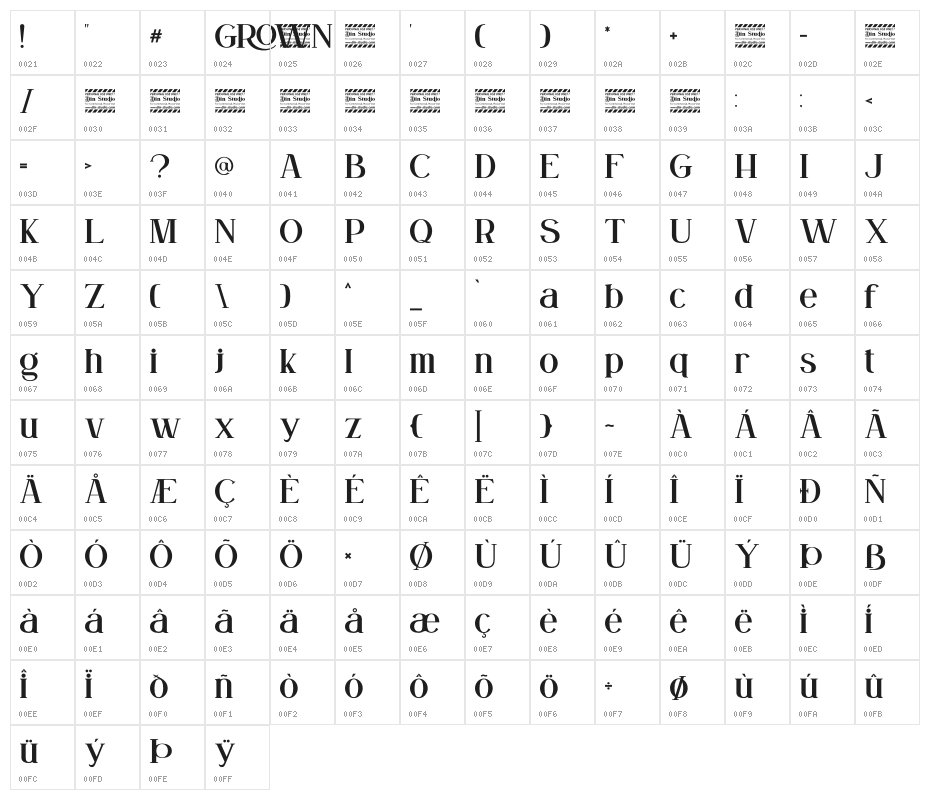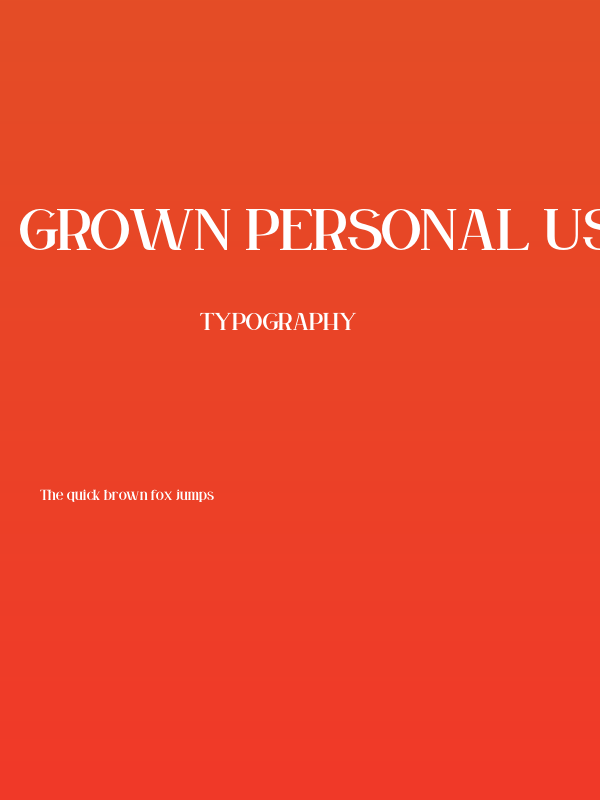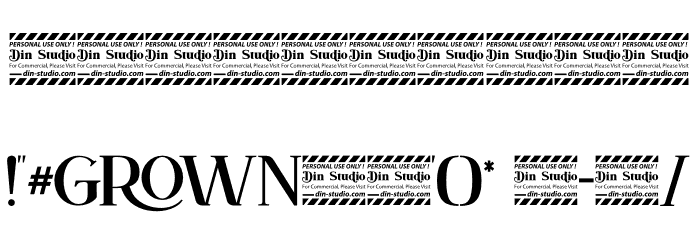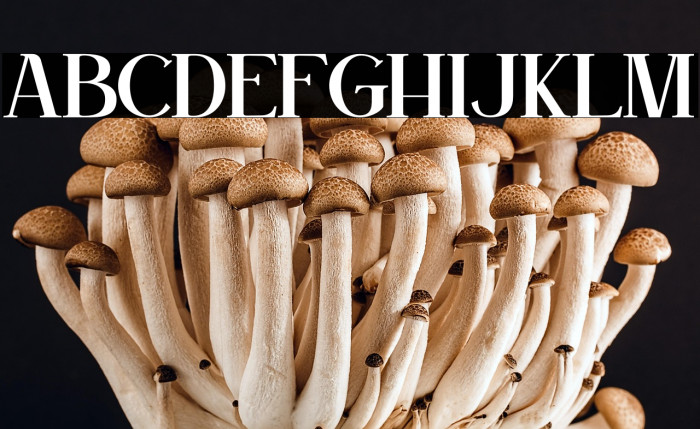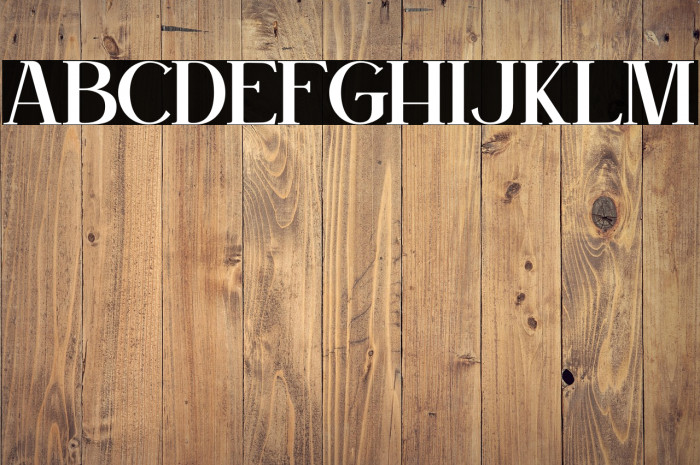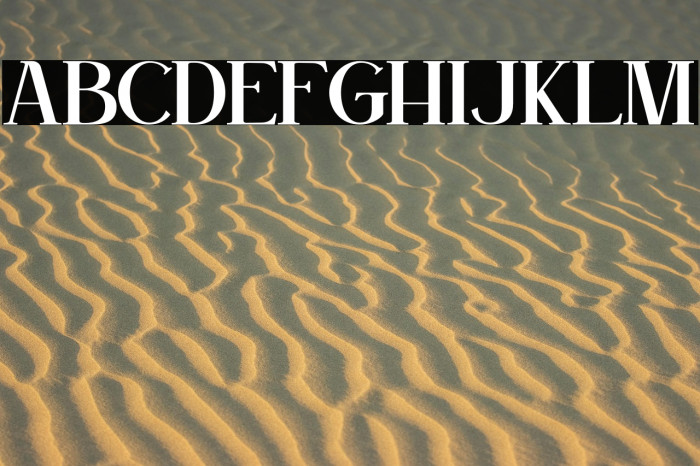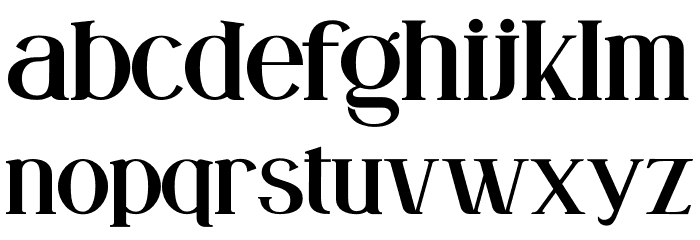
Grown Personal Use Font
Grown Personal Use Description
This font features a bold and modern serif style with distinct, sharp edges and a strong presence. The uppercase letters are tall and commanding, while the lowercase letters maintain a consistent flow with slightly rounded edges. The font exhibits a high contrast between thick and thin strokes, enhancing its readability and visual impact. The special characters are designed with the same attention to detail, ensuring a cohesive look throughout. This typeface is well-suited for projects that require a touch of elegance and sophistication.
| Use Case | Headlines, Logos, Editorial design |
| Proposed Projects | Ideal for branding, editorial design, headlines, and luxury product packaging. |